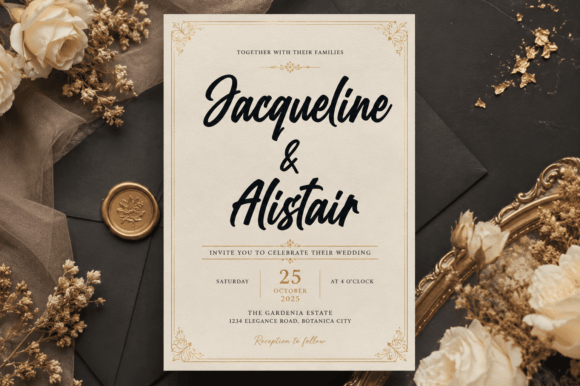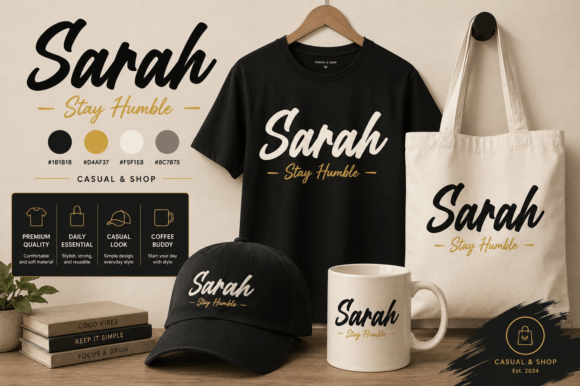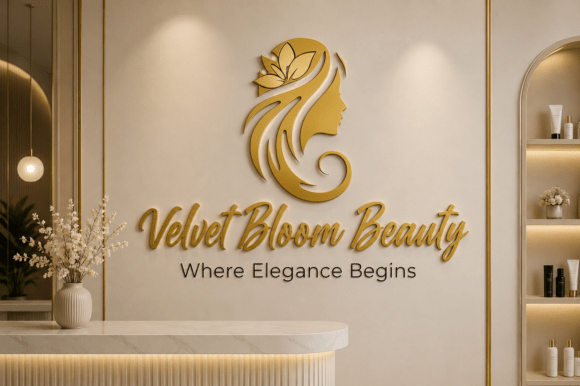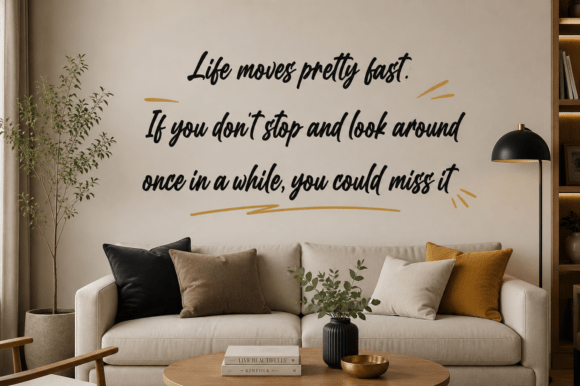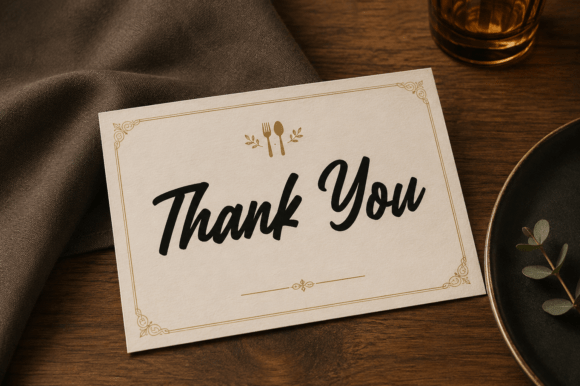
Introduction to Reback Master Font
Introducing the charismatic Reback Master – a bold, handwritten script font that brings together the vibrance of expressive brush lettering with a trendy vintage vibe.
Imagine thick, powerful strokes, sensual curves, and a play of positive energy This font carries a powerhouse aesthetic, while maintaining a breezy, fluid feel evoking the rhythm of natural handwriting.